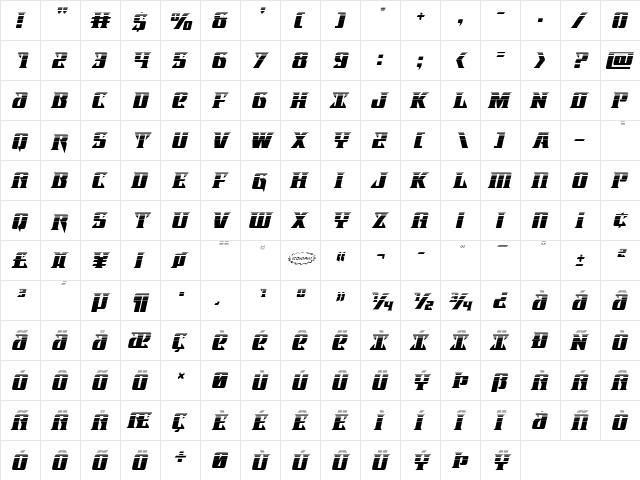
Lifeforce Halftone Italic Italic
Design Context for Lifeforce Halftone Italic Typeface
Lifeforce Halftone Italic brings high-energy athletic personality to the page — its confident, muscular forms are built for impact. The dynamic lean of this cut emphasises speed and emphasis in any layout.
Built for sports team identities, athletic apparel, event posters, and high-energy promotional material.
Font Pairing: Use alongside a condensed or geometric sans for supporting copy — keep the pairing bold, functional, and free of ornament.
Pro Tip: Lifeforce Halftone Italic thrives on contrast — try it large, bold, and tight against a clean background for maximum visual impact.